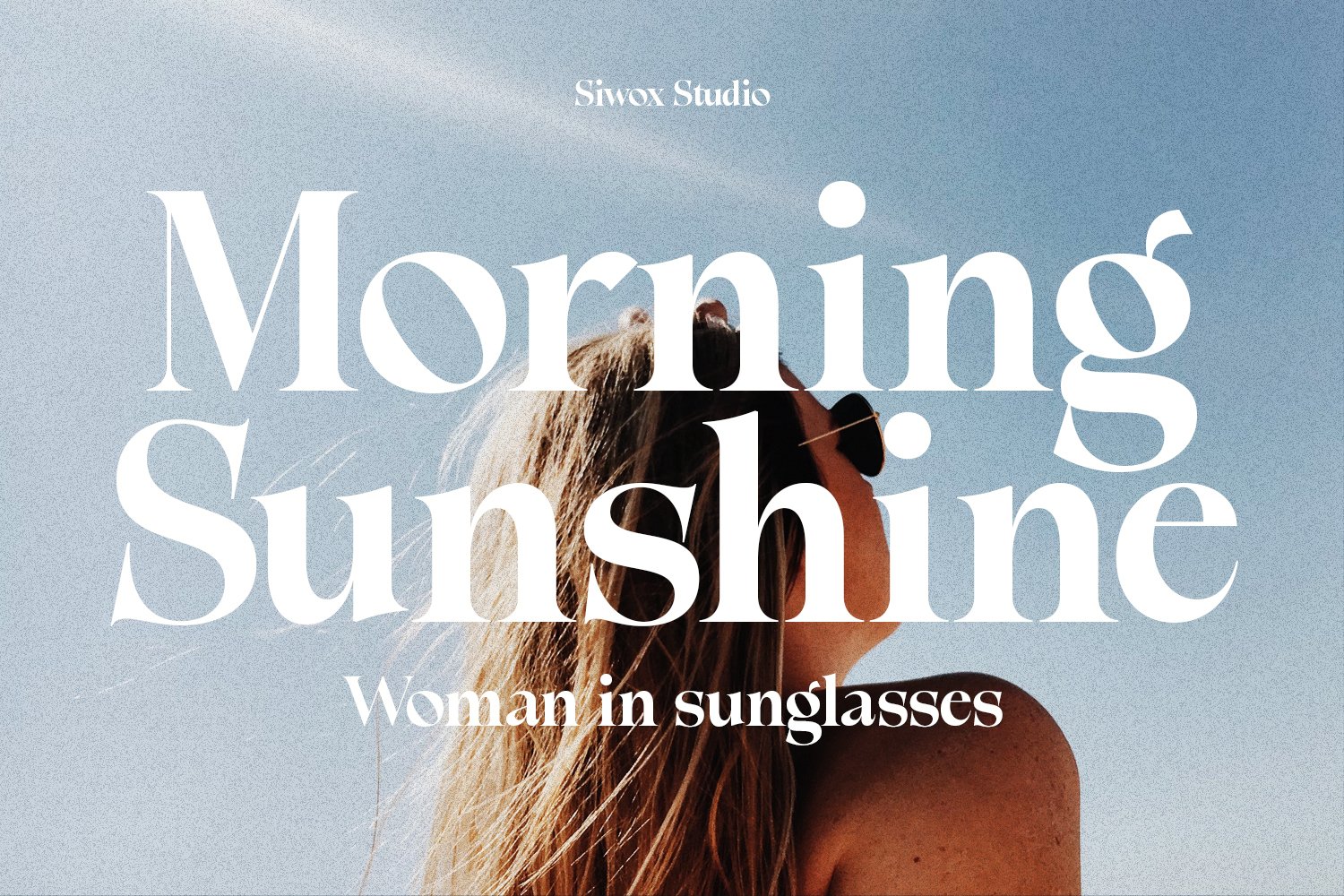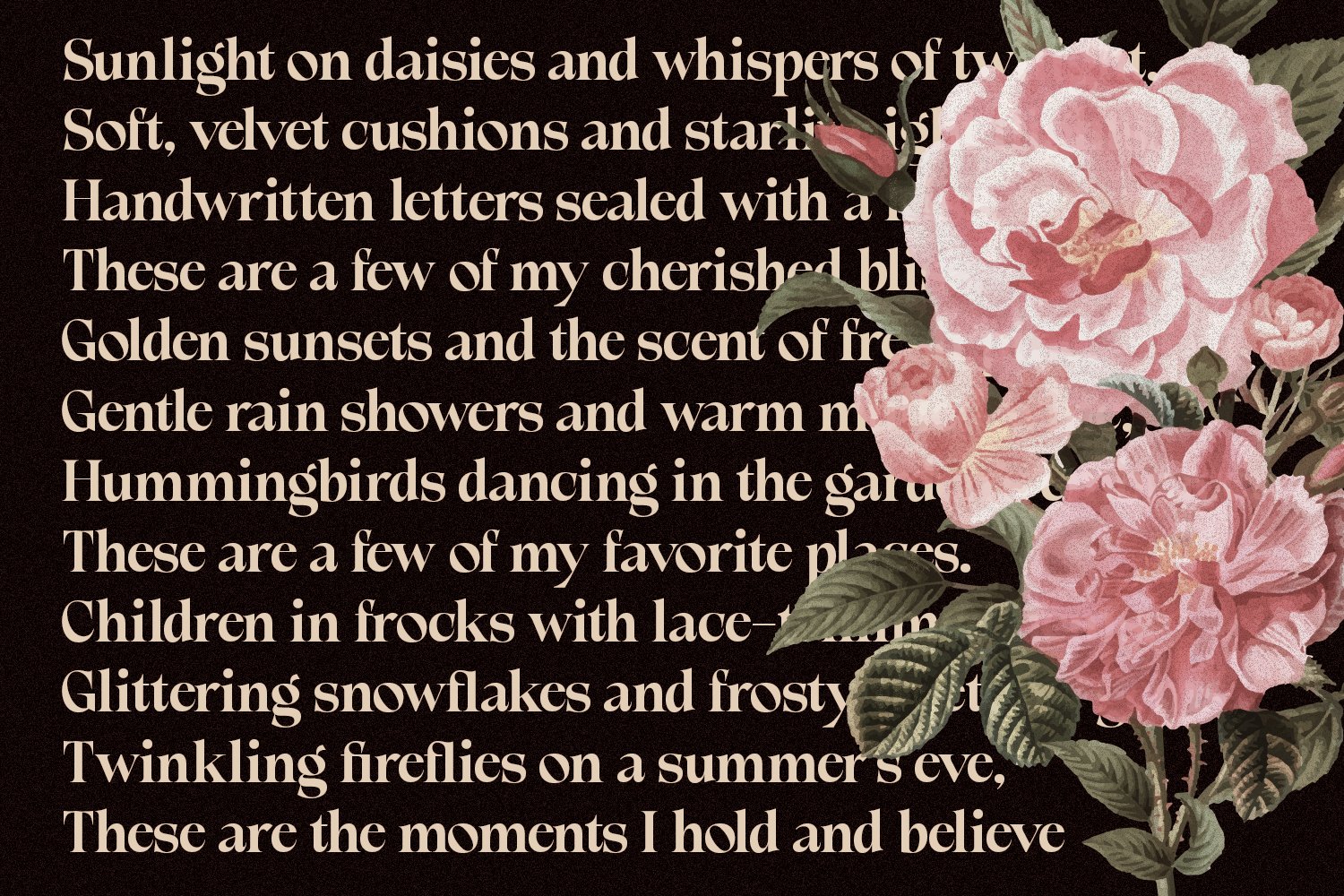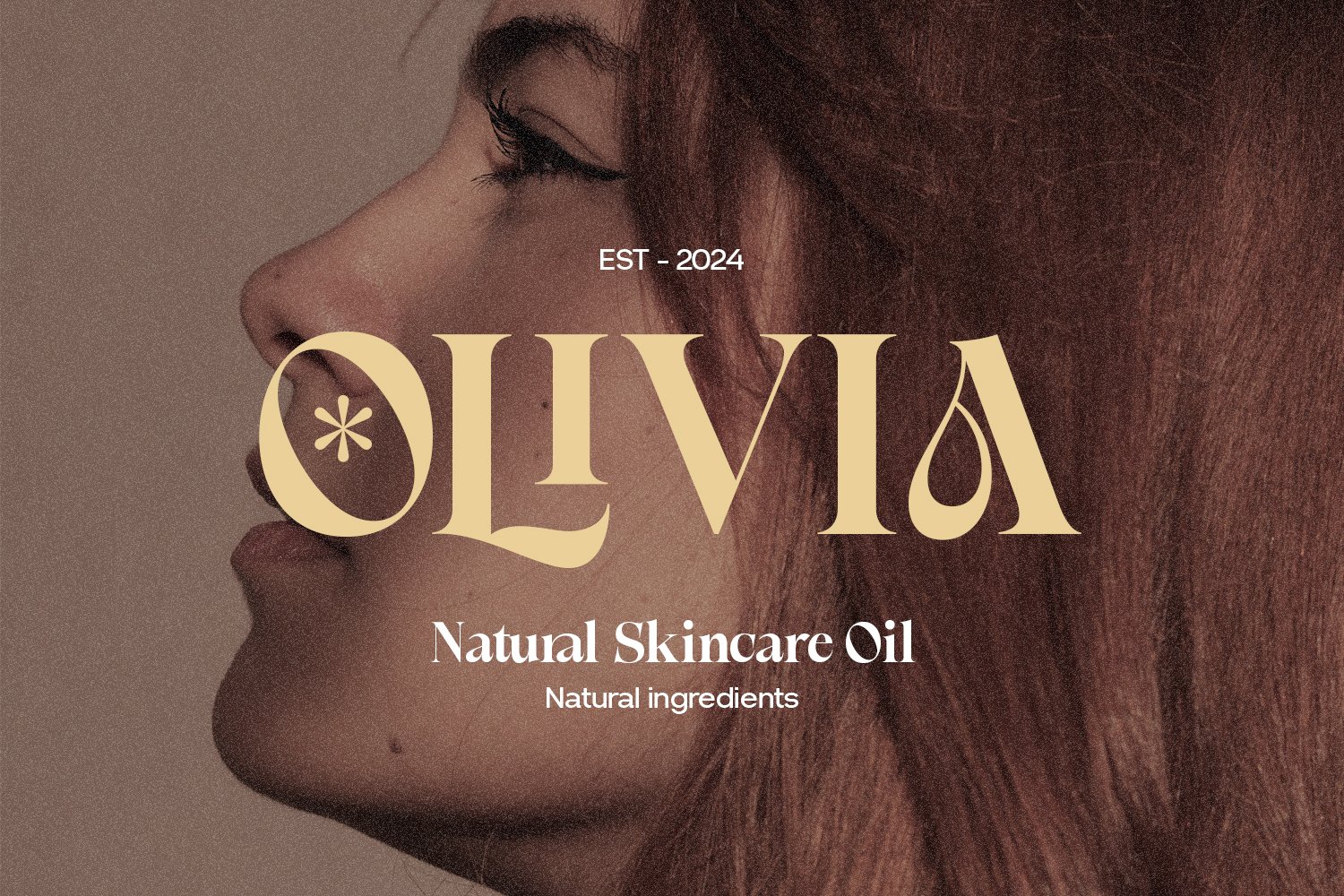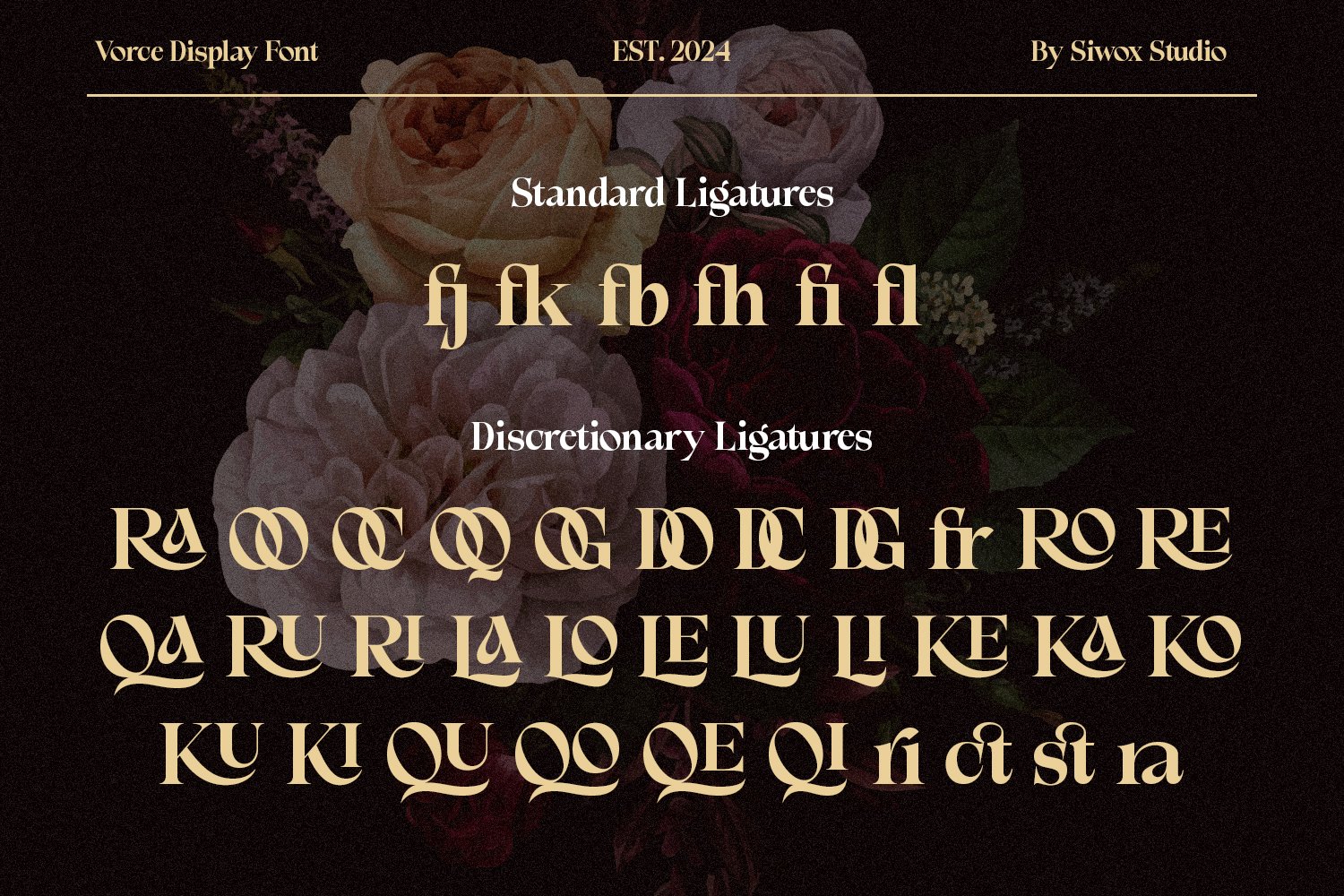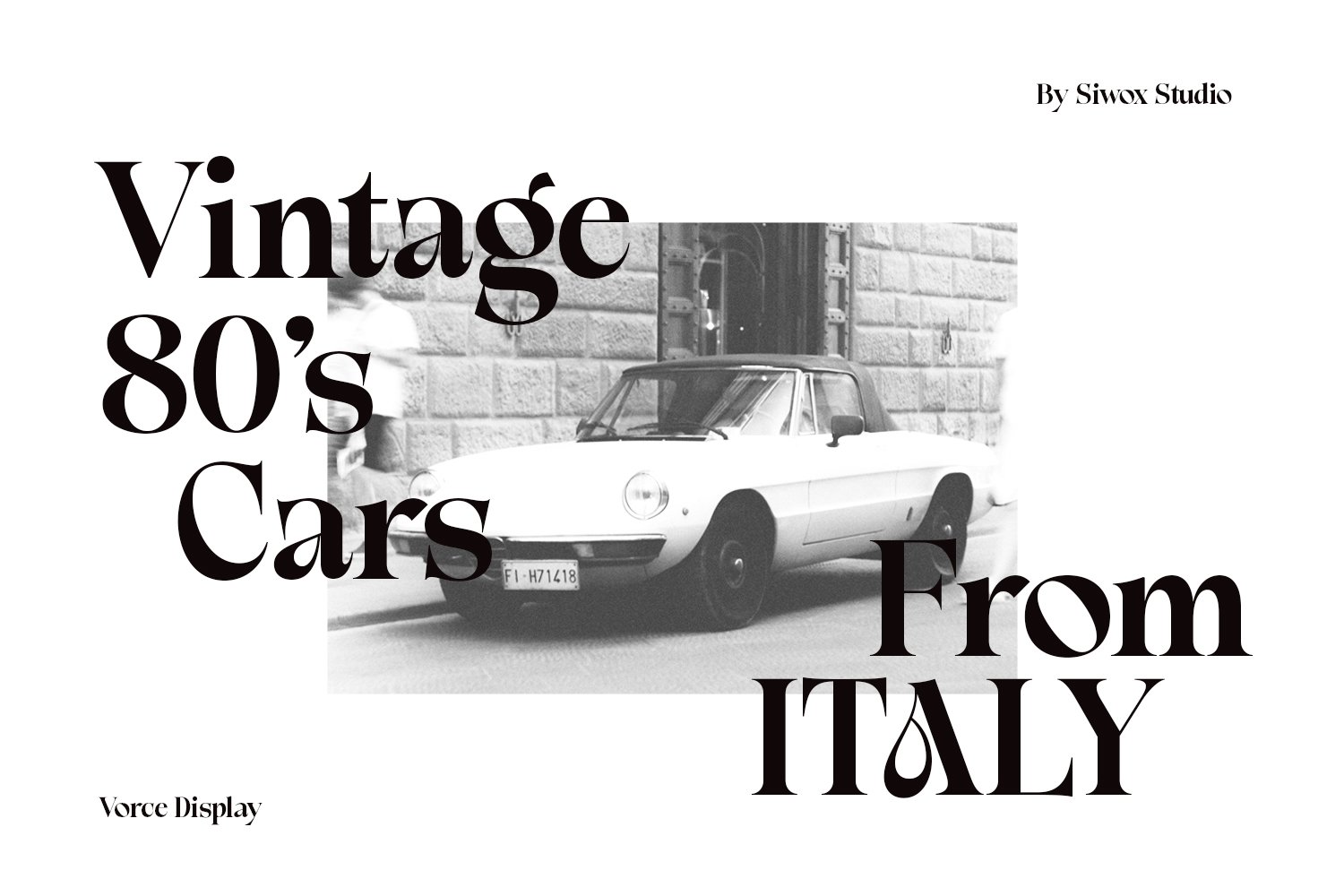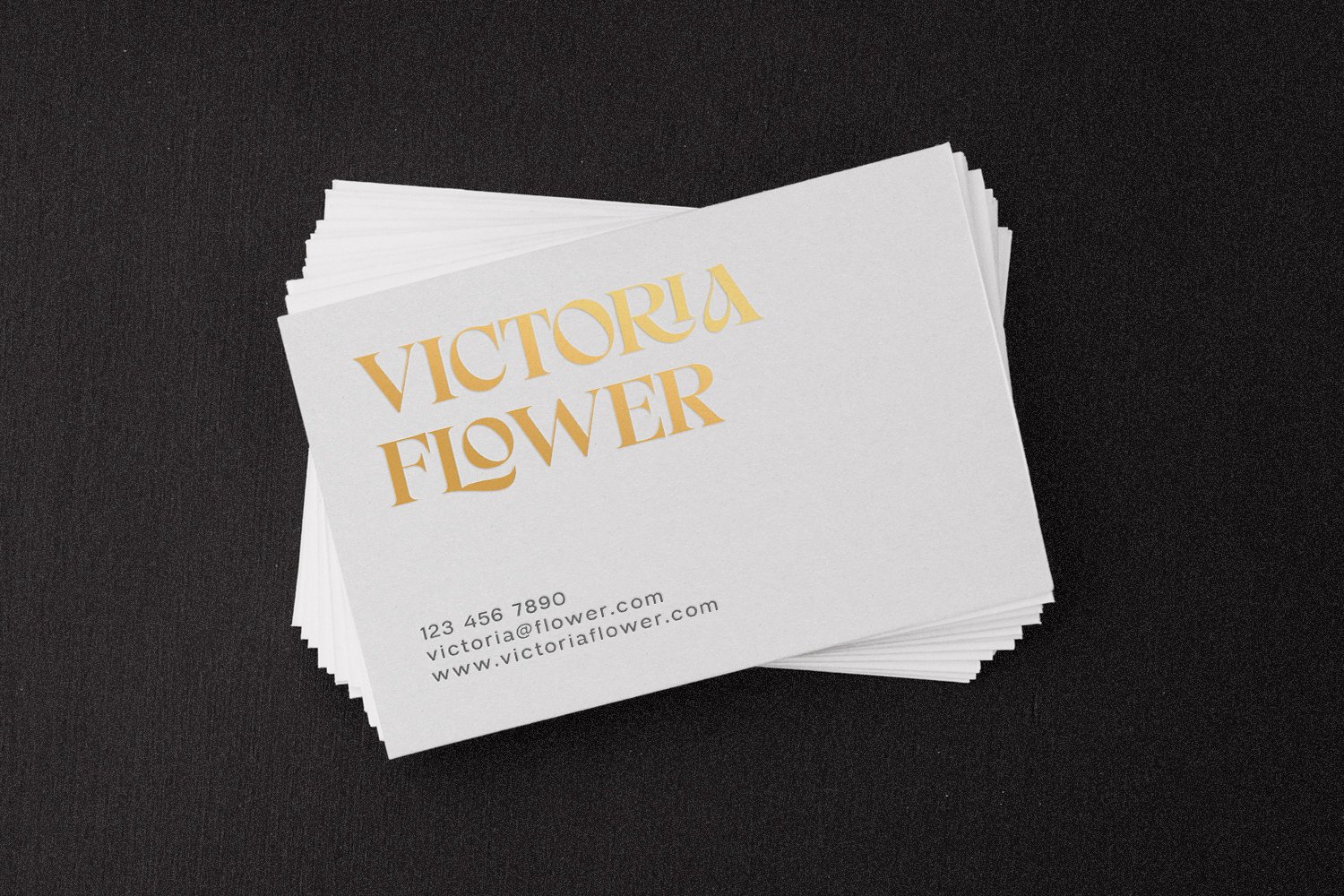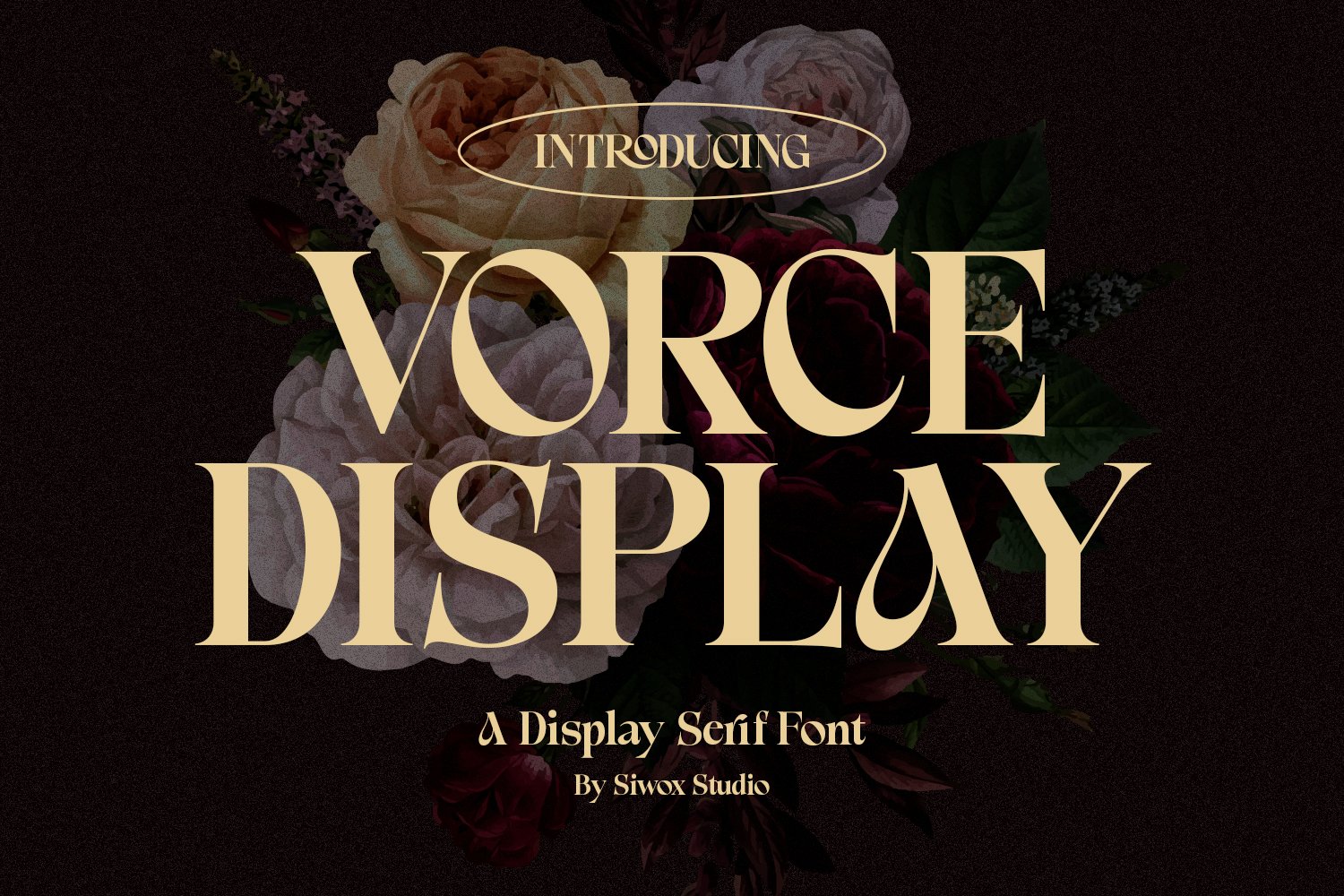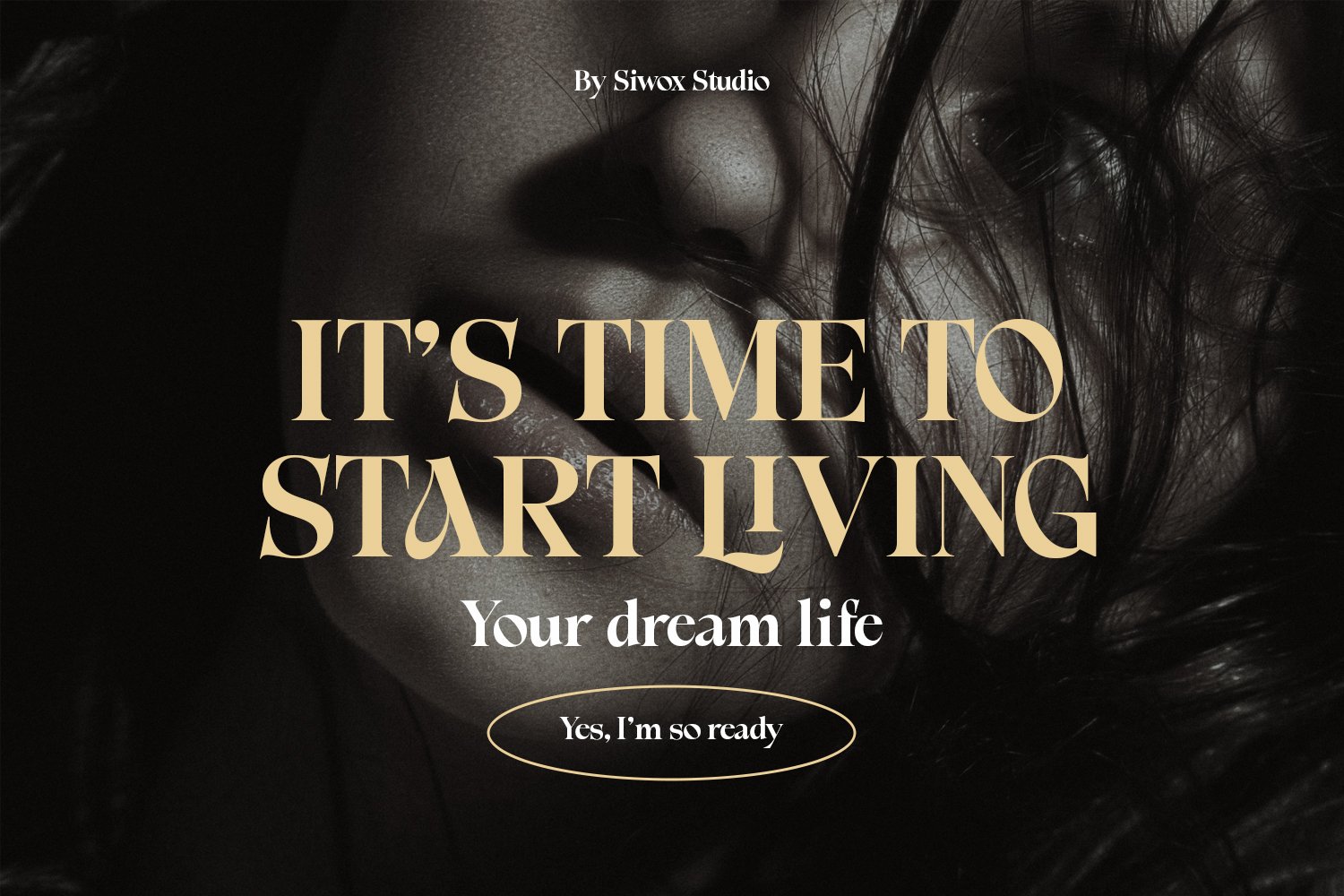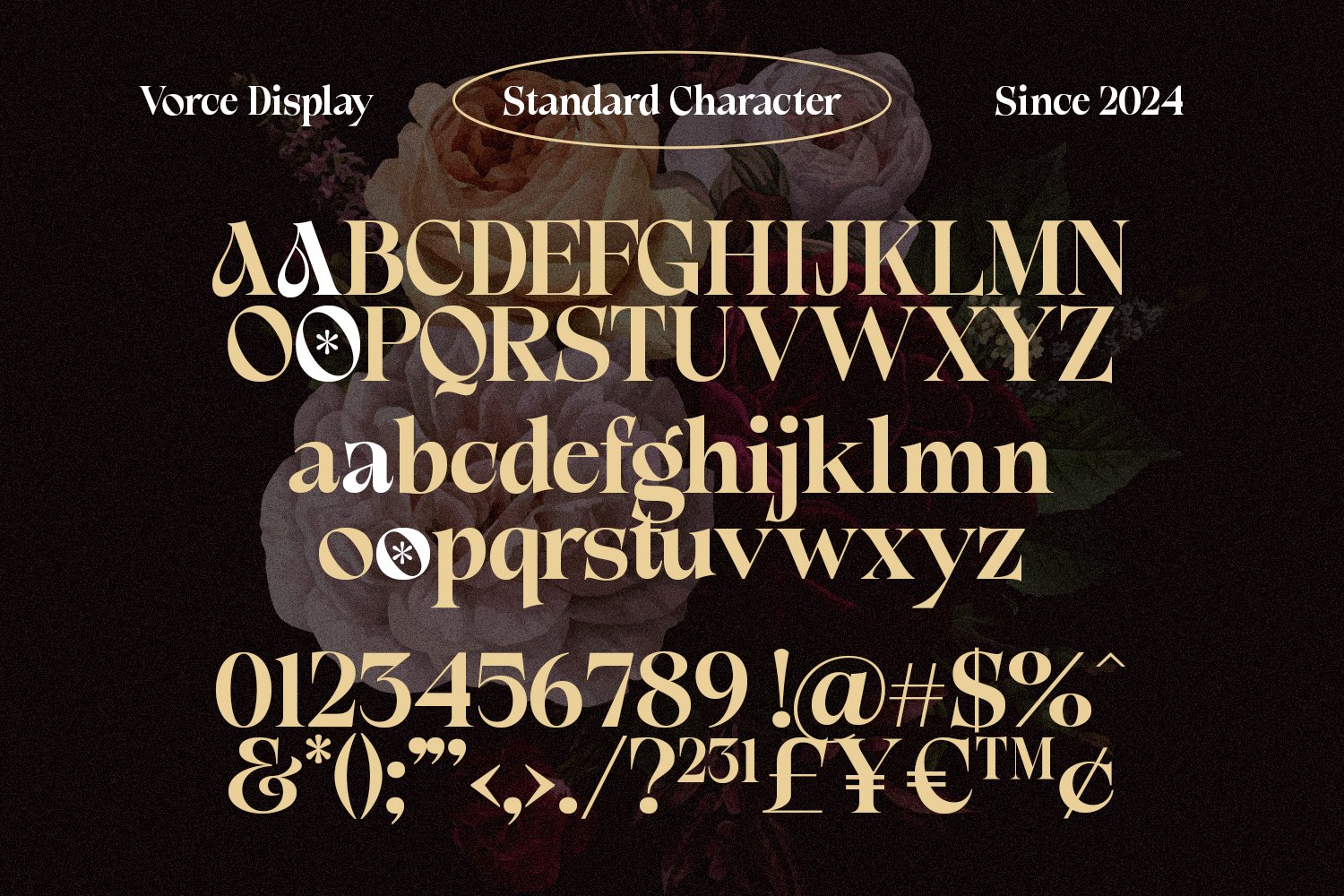
VORCE DISPLAY - A Serif Font
INTRODUCING VORCE DISPLAY
Discover the perfect blend of timeless elegance and modern flair with this versatile serif typeface. Ideal for everything from branding and logos to wedding designs, it elevates social media, ads, product packaging, labels, photography, and invitations. Crafted for readability, this font brings clarity and sophistication to any project, making it the ideal choice for stunning, memorable visuals.
Additionally, this font features unique and stylish ligatures that add an extra layer of character and charm. These special ligatures seamlessly connect letters, creating a distinctive, fluid design that enhances the overall appeal.